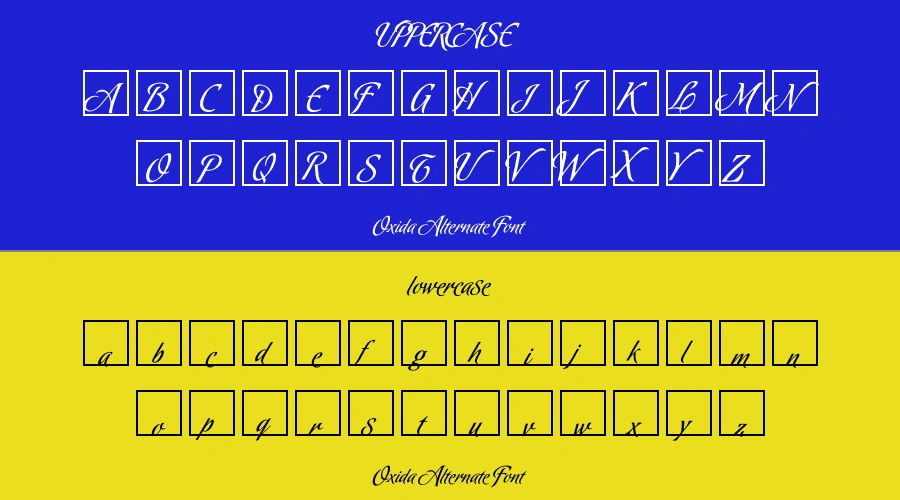
About Oxida Alternate Font
Oxida Alternate Font embodies typographic excellence through its masterful combination of elegant proportions and adaptability. Created for engineering drawings, this typeface delivers exceptional adaptability and design innovation across all applications. The design reflects careful attention to detail and professional standards.
Advanced capabilities include distinctive curved brackets and versatile titling alternates, giving designers creative control. When used in promotional materials, Oxida Alternate Font exhibits remarkable headline impact. The harmonious balance between bowl width and personality sets this typeface apart.